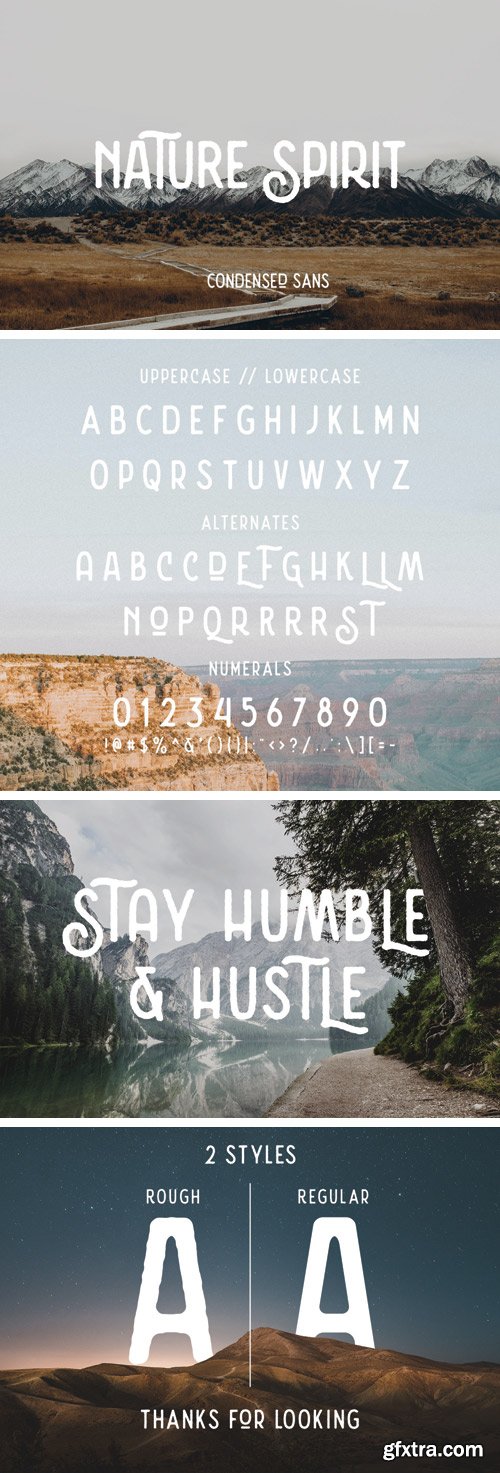
Nature Spirit Font Family
Nature Spirit is a unique vintage style font from Alex Joganic of 1871 Project. It features 2 versions - Clean & Rough. This font has retro stylings and features tons of alternate characters for creating custom type. This is perfect for vintage branding, logo & label design, apparel, lockups and much more!